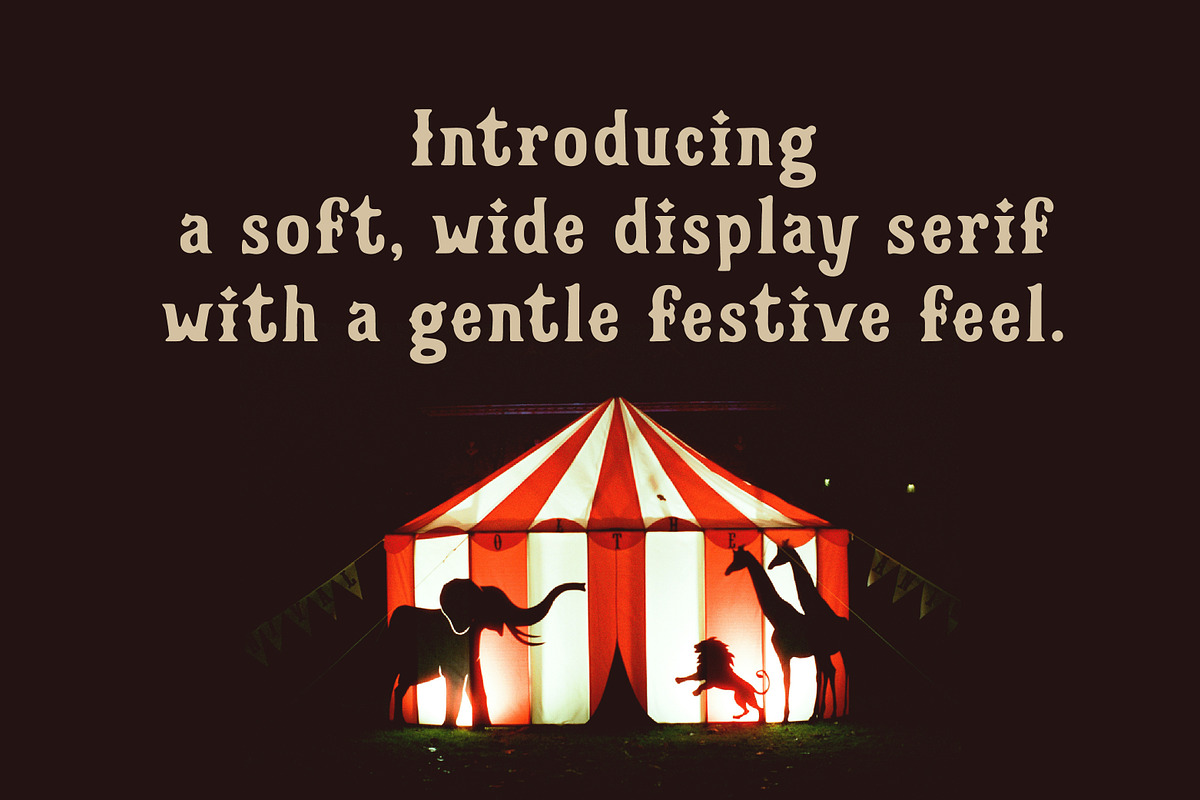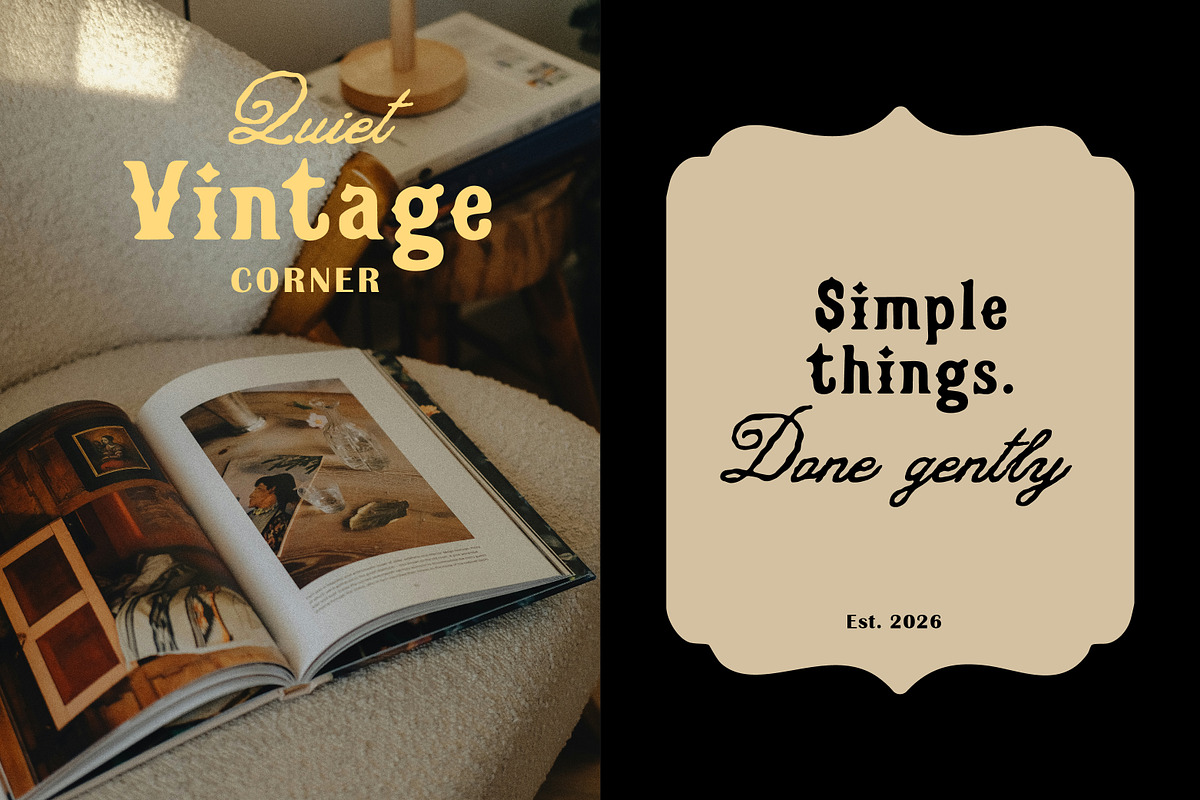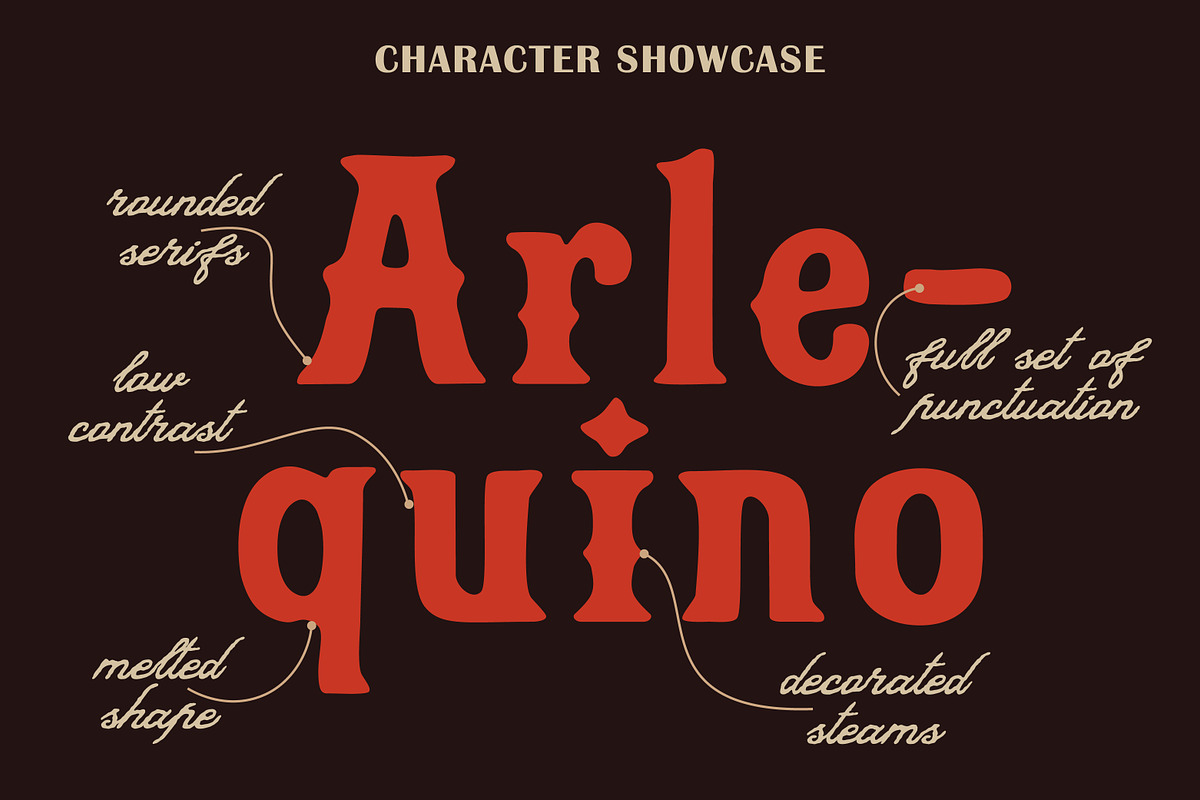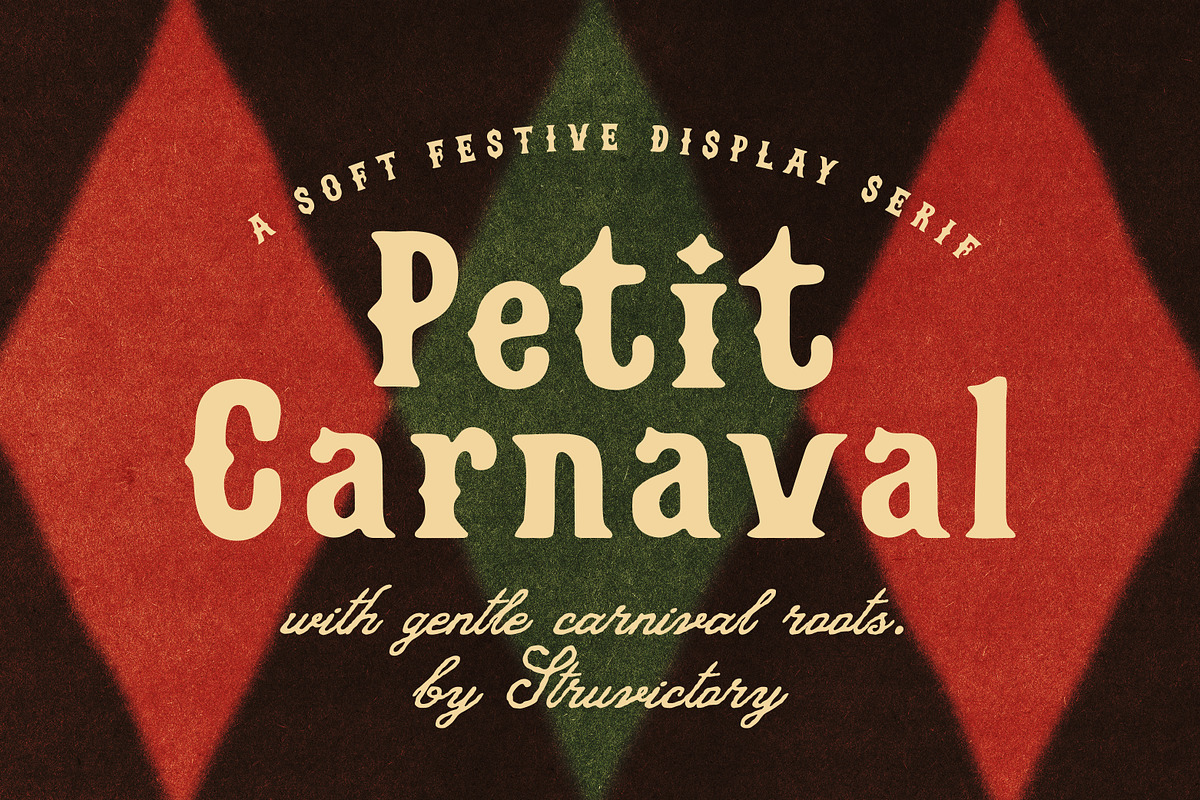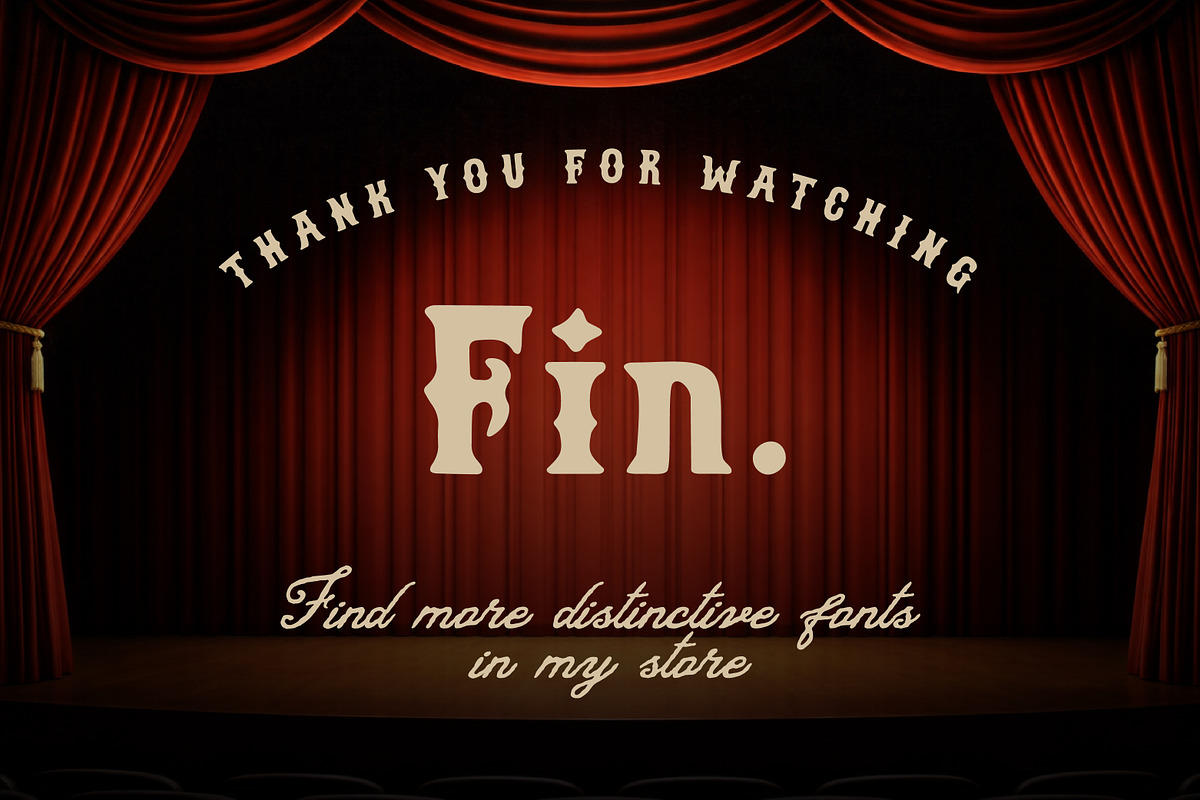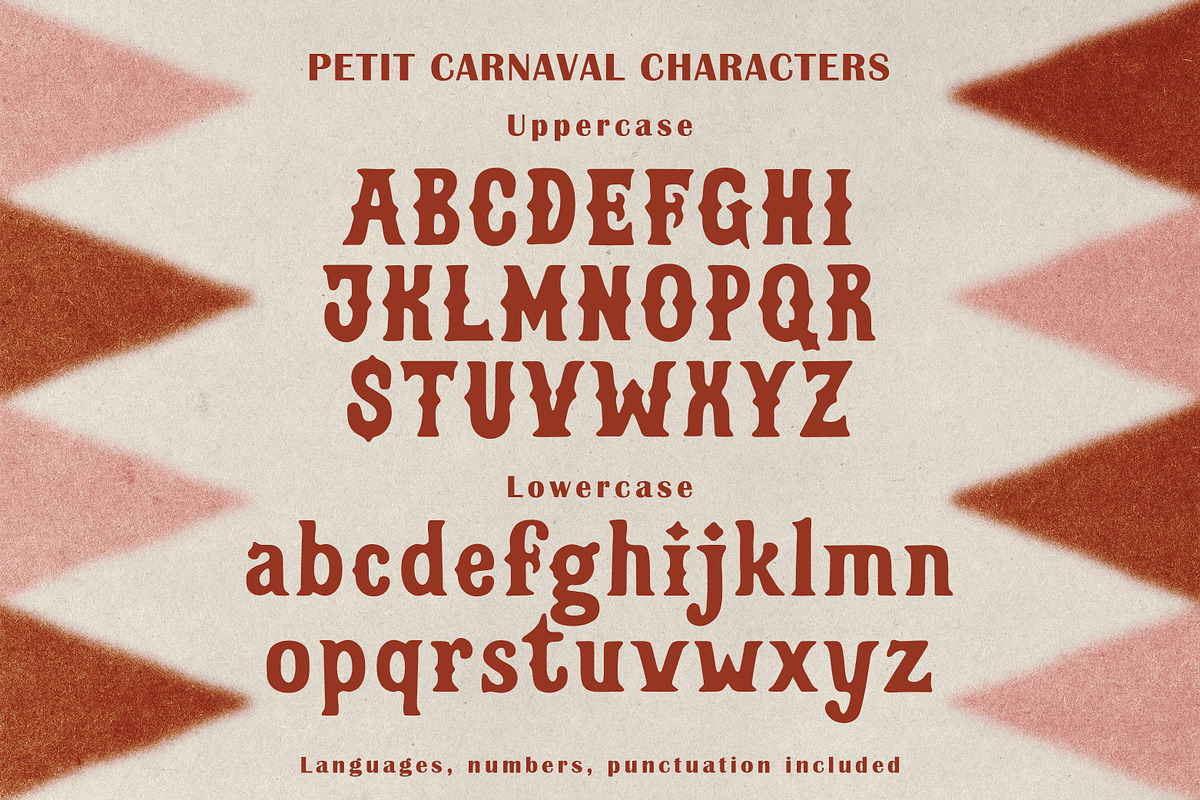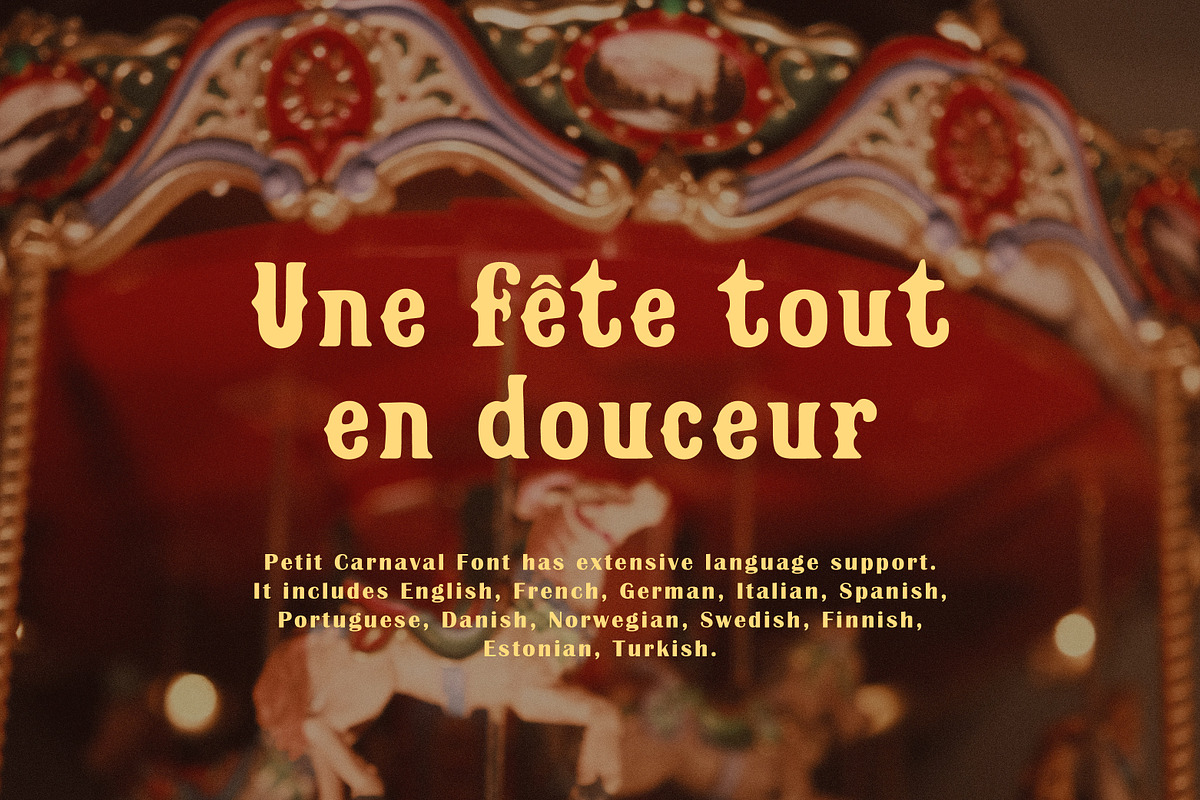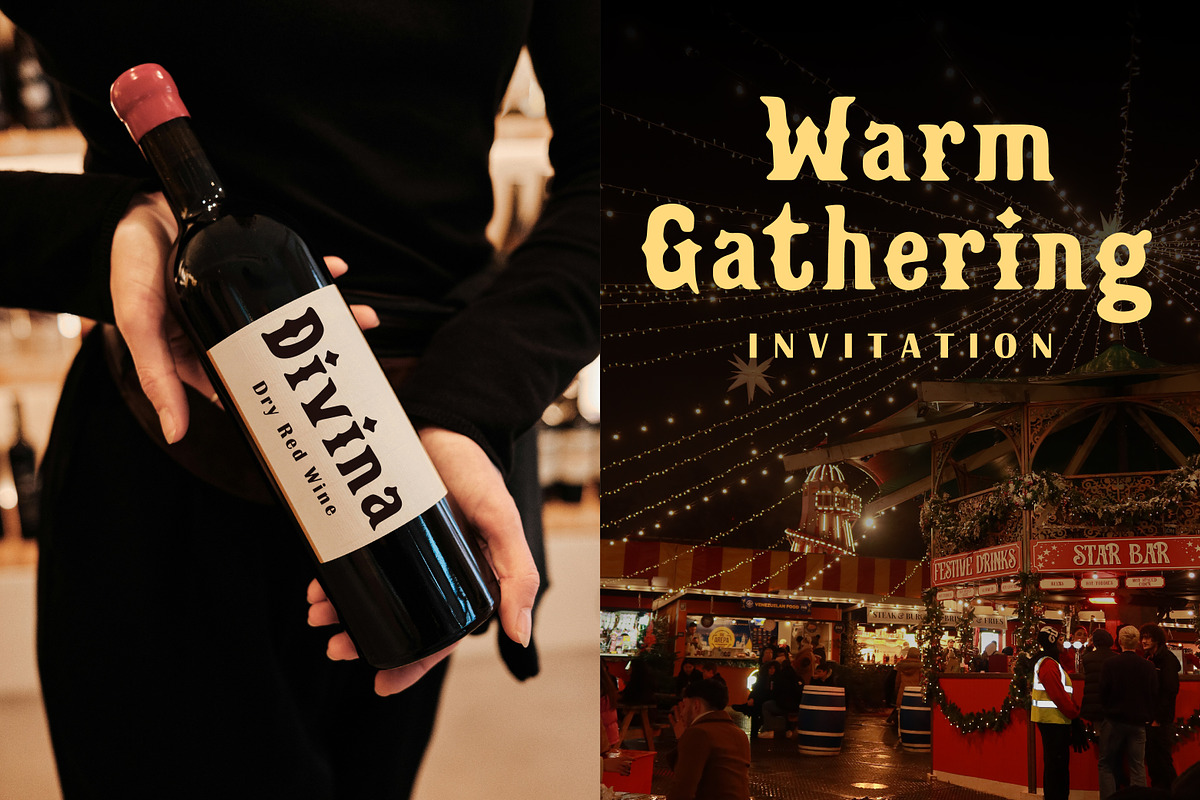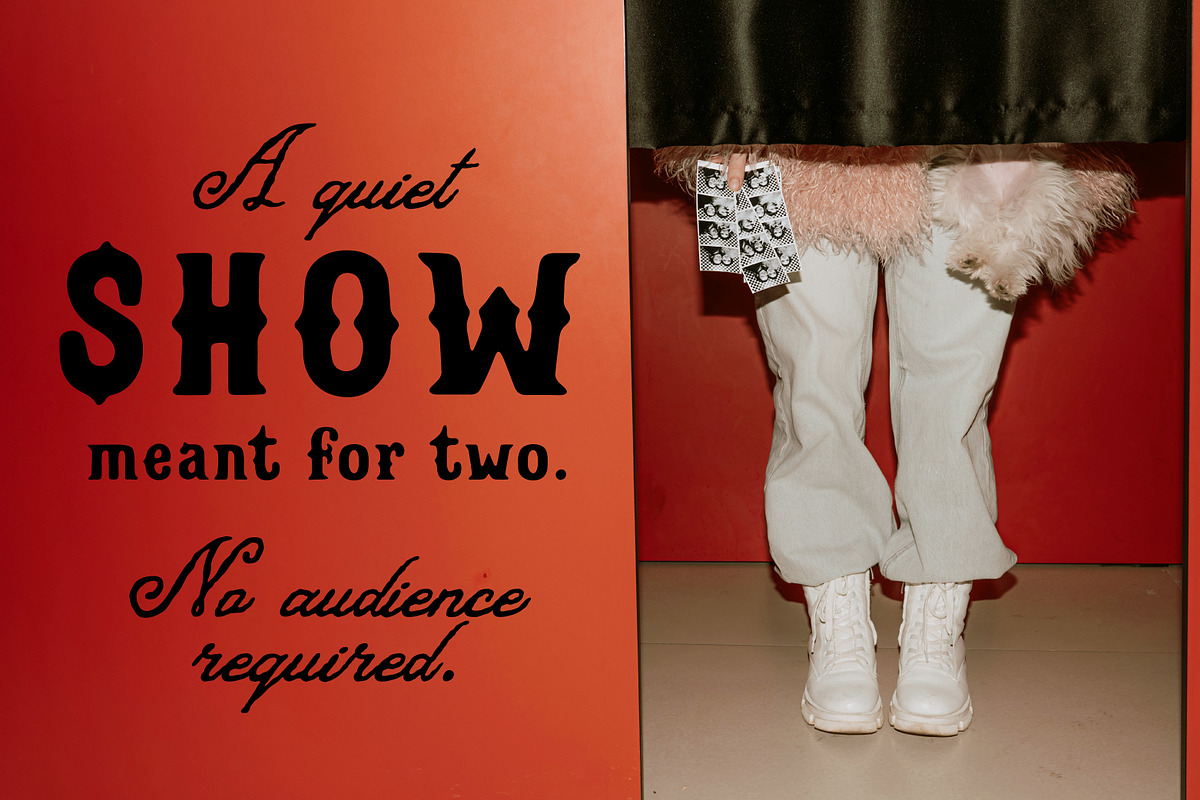
Petit Carnaval Soft Circus Serif
Petit Carnaval is a soft, wide display serif inspired by classic carnival lettering, reimagined in a calm and contemporary way. With gently melted shapes, rounded details, and a warm visual rhythm, it brings a subtle festive character without feeling loud or theatrical. Petit Carnaval is designed for branding, packaging, logos, editorials, and lifestyle content where personality, warmth, and approachability matter. It works beautifully for small brands, cozy packaging, blogs, posters, and invitations, offering a quiet sense of celebration and refined charm. The font supports the most popular latin-based languages.